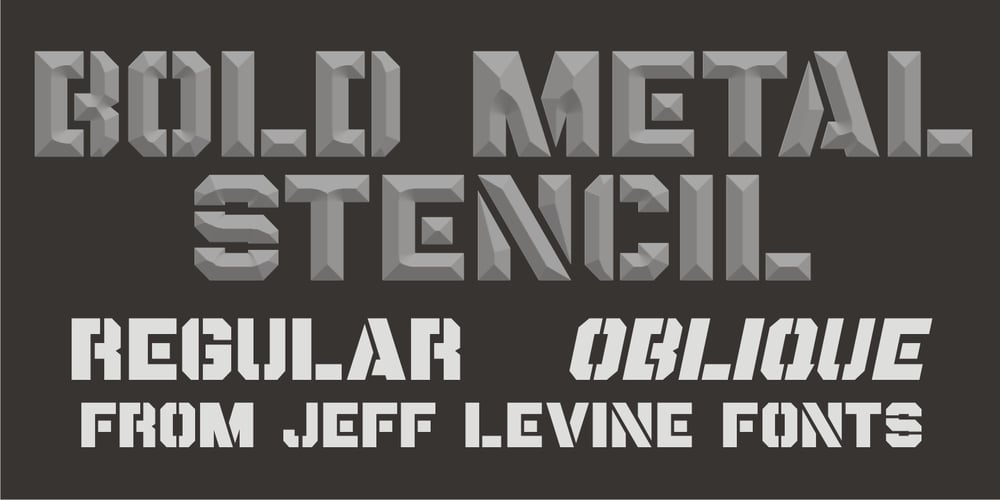
Bold Metal Stencil JNL Font Family was designed by Jeff Levine and published by Jeff Levine. Bold Metal Stencil JNL contains 2 styles and family package options. An image of a vintage, hand-cut metal stencil with just a set of bold numerals inspired the design of Bold Metal Stencil JNL. The typeface is available in both regular and oblique versions.